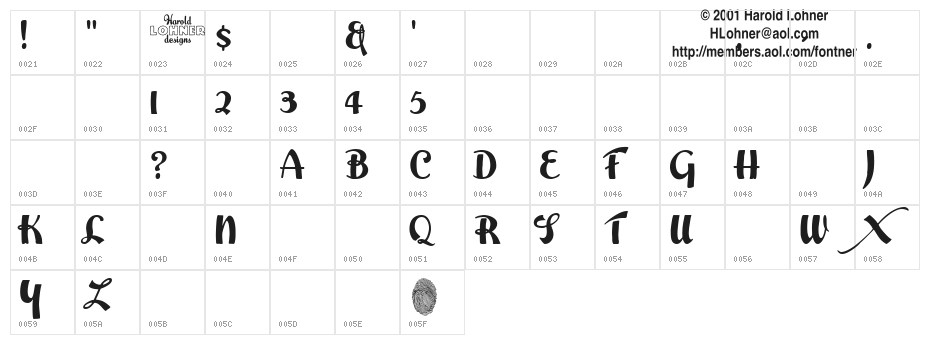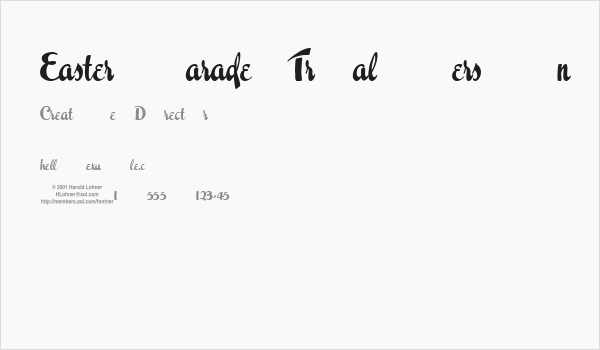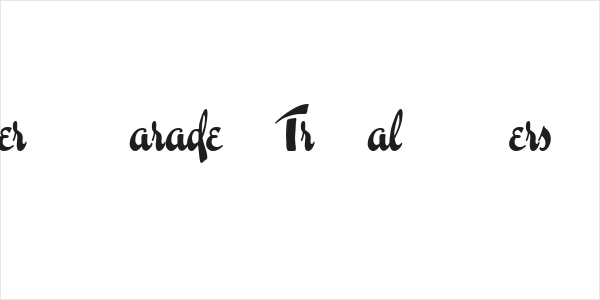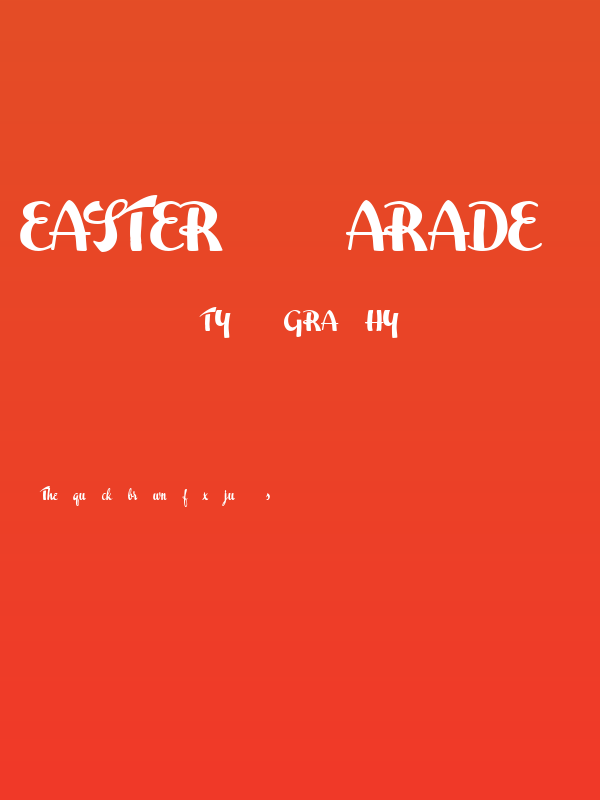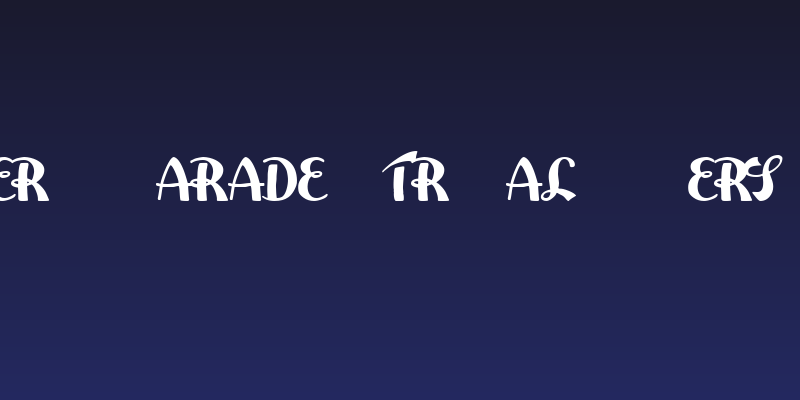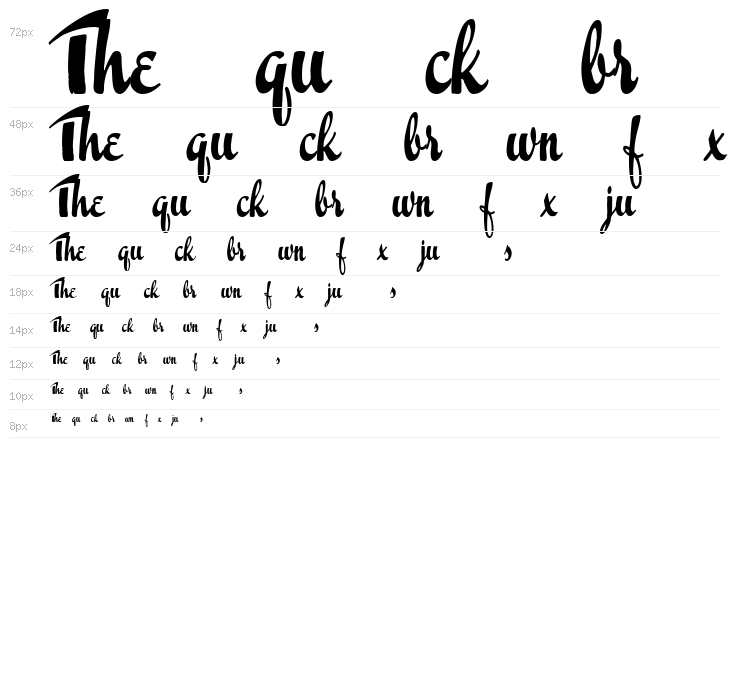
Easter Parade Trial Version Font
Easter Parade Trial Version Description
This font features a playful and whimsical design with a handwritten script style. The letters are bold and have a flowing, cursive appearance, characterized by smooth curves and elegant swashes. The uppercase letters are particularly decorative, with unique flourishes that add a touch of flair. The lowercase letters maintain a consistent style, complementing the uppercase with their rounded forms and connected strokes. Numbers and special characters are designed to match the overall aesthetic, ensuring a cohesive look across all text. The font's style is reminiscent of vintage signage or festive invitations, making it ideal for projects that require a touch of elegance and personality.
| Proposed Projects | Ideal for invitations, greeting cards, festive banners, and vintage-themed designs. |